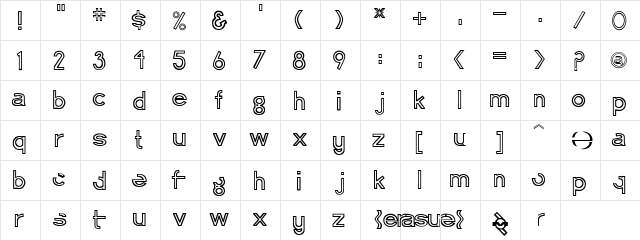
Erasure Medium Font Preview
Erasure Medium
Erasure Medium Font Details
Design Context for Erasure Typeface
Erasure is a composed and adaptable typeface that performs quietly and consistently across a wide range of design contexts.